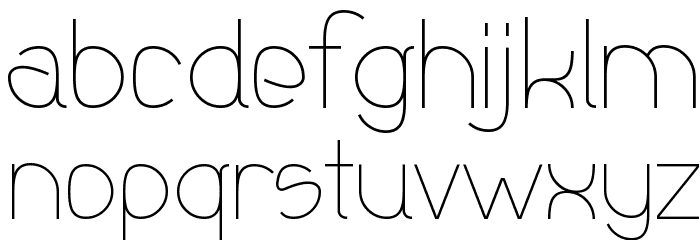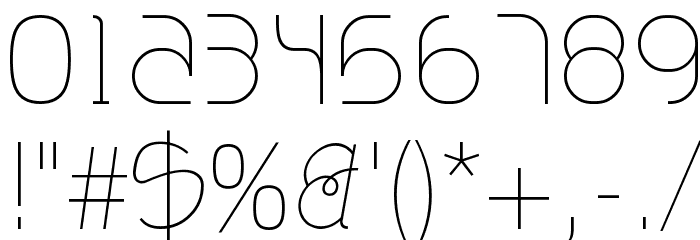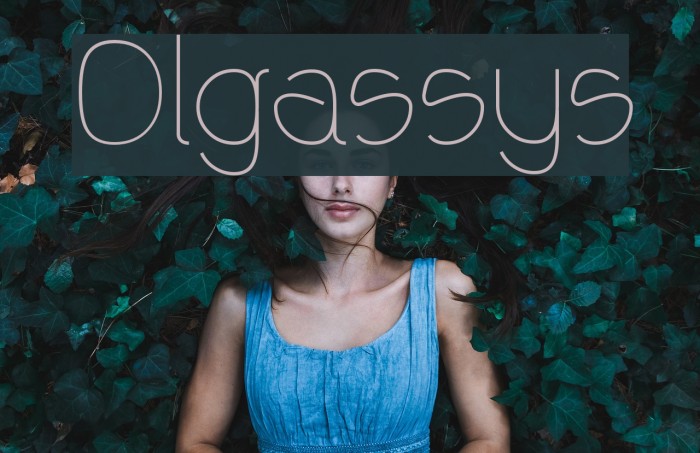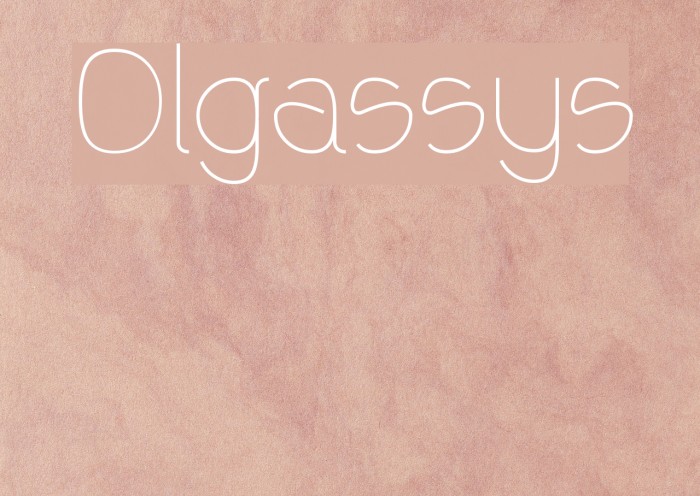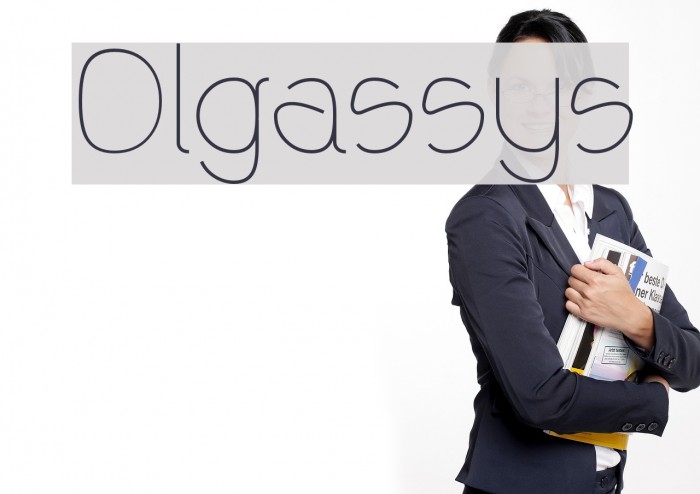
Olgassys Font
This font features a sleek, modern design with clean, geometric lines and a minimalist aesthetic. The characters are uniformly thin, creating a sense of elegance and sophistication. The uppercase letters are tall and narrow, while the lowercase letters maintain a consistent height, contributing to a harmonious appearance. Numbers and special characters are designed with the same attention to detail, ensuring readability and style. The overall look is contemporary, making it suitable for a variety of design applications where a modern and refined touch is desired.
A sleek, modern font with geometric lines and a minimalist aesthetic.
- Proposed Projects: Ideal for branding, modern web design, tech-related projects, and minimalist posters.